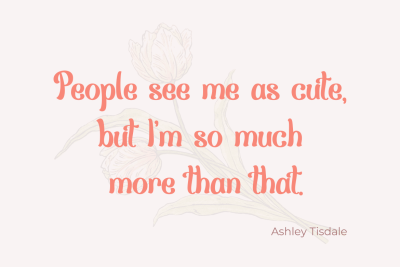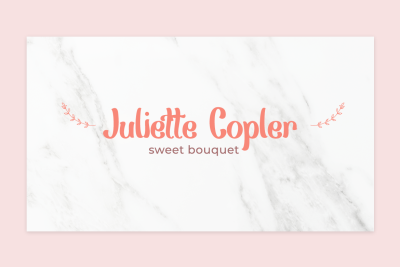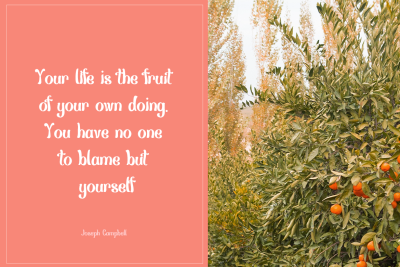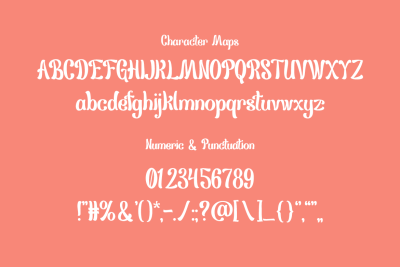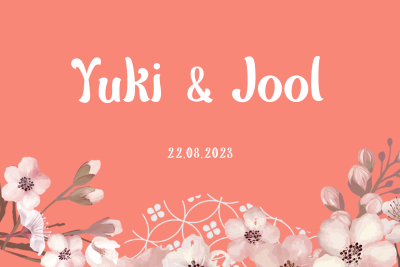
Handwriting Font Rachel is a charming and modern script typeface. It brings a playful yet elegant touch to any project. Moreover, its smooth curves and crafted letterforms create a balance between sophistication and fun. In addition, with bold yet soft strokes, this font embodies a friendly and approachable look, making it great for various creative applications.
What sets Handwriting Font Rachel apart is its ability to blend style with a handwritten feel. Furthermore, slight stroke variations add natural flow, mimicking real handwriting while keeping a polished look. Whether for branding, social media, or print, this font adds personality and warmth. As a result, it enhances any design with a touch of authenticity.
Additionally, Handwriting Font Rachel offers excellent readability in all sizes. Its well-spaced letters and gentle curves make it easy to read, making it ideal for digital and print projects. Moreover, the font includes alternate characters and ligatures, allowing designers to create unique typography. Therefore, it provides a flexible option for different creative needs.
Beyond aesthetics, Handwriting Font Rachel supports multiple languages. Consequently, this makes it versatile for international branding and communication. Whether designing logos, invitations, or packaging, this font adds elegance while keeping things fun and engaging. As a result, it meets the needs of various industries.
Handwriting Font Rachelย Who is it for?
Handwriting Font Rachel is perfect for creatives, small business owners, and branding professionals who want a handwritten touch. Its playful yet polished look makes it ideal for:
- Graphic Designers: Great for logos, packaging, and branding materials needing a fresh and approachable feel.
- Social Media Influencers: Additionally, it enhances Instagram posts, Pinterest graphics, and YouTube thumbnails with a stylish presence.
- Small Business Owners: Moreover, it is perfect for product labels, business cards, and marketing materials that build a memorable brand identity.
- Writers & Bloggers: Furthermore, it adds character to book covers, blog headers, and editorial layouts, making content more engaging.
- Wedding & Event Planners: Likewise, it is suited for wedding invitations, greeting cards, and custom stationery with a delicate personal touch.
- Educators & Course Creators: In addition, it works well for worksheets, presentations, and teaching materials, making content more appealing.
- Artists & Creatives: Moreover, it is ideal for handmade crafts, art prints, and creative projects needing an expressive, modern handwritten font.
With its versatility and charm, Handwriting Font Rachel is a must-have for anyone wanting a unique handwritten aesthetic. Whether for branding, personal projects, or social media, this font ensures every word appears beautifully and engagingly on the page.